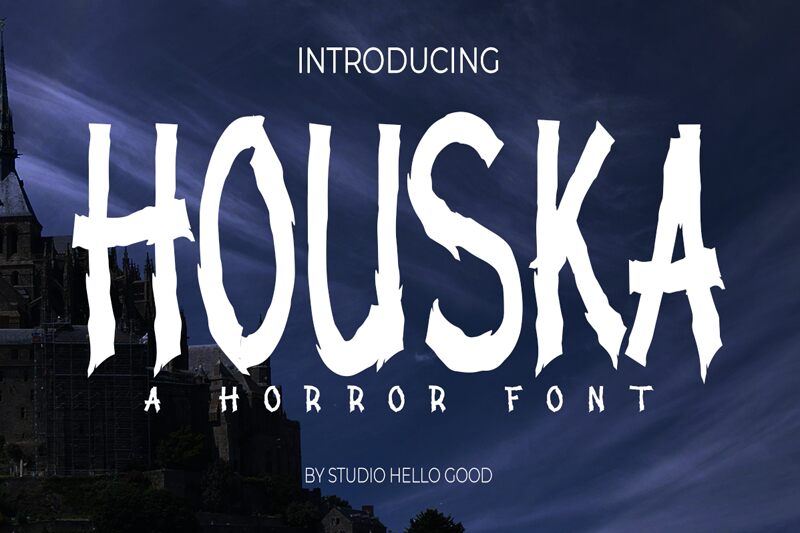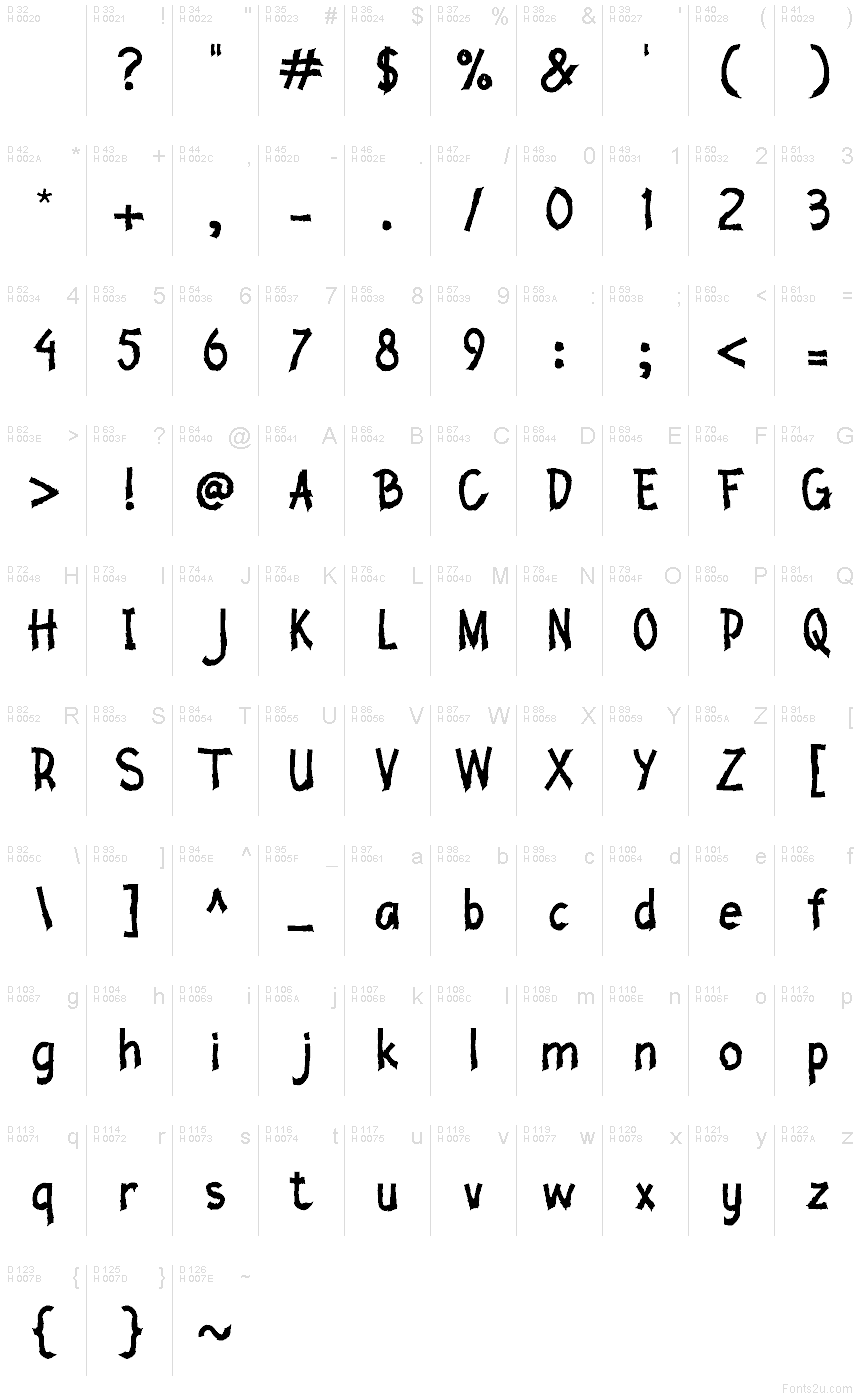
HOUSKA
Houska font by Studio Hello Good is a free scary display typeface that looks like it’s been hacked out of black paper with a dull knife. The letters are jagged, bristling with splinters and uneven cuts, giving headlines a frantic, scratchy energy. Thick strokes sink into inky pools, while the ragged edges keep things wild and unpredictable—great when you need fear with attitude, not cliché cobwebs.
Using Houska, your message hits like a jump scare: it shines on haunted house posters, Halloween party flyers, slasher movie titles, escape room branding, horror podcast covers, and eerie YouTube thumbnails. Set it big with slightly looser tracking for maximum menace, and pair with a plain, sturdy sans serif for supporting text so the chaos stays readable. This free font makes the scream impossible to ignore.